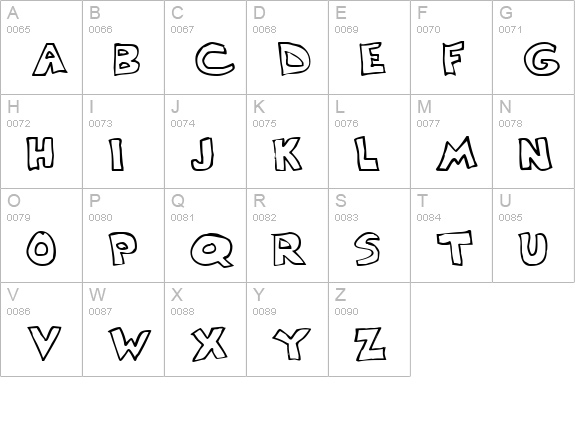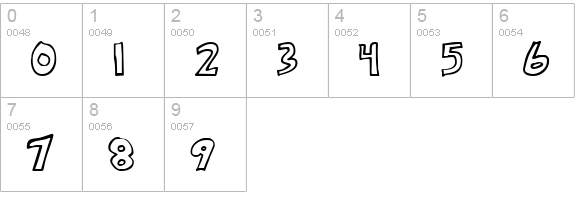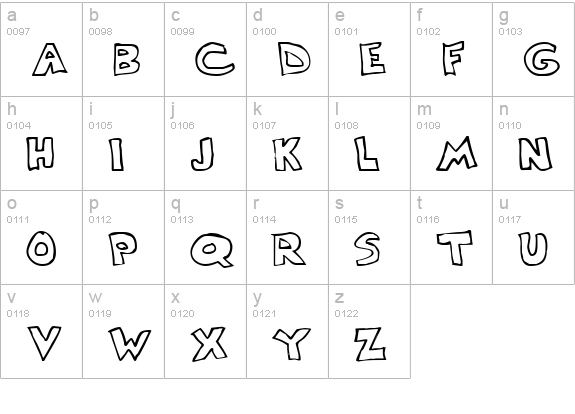
Scrawllege Font Details
Introducing Scrawllege, a uniquely captivating and versatile font that effortlessly combines elegance with a touch of playfulness. This extraordinary typeface is perfect for adding a dash of creativity to your projects, whether you're designing a logo, creating eye-catching headlines, or crafting stunning invitations. With its carefully crafted strokes and beautifully irregular letterforms, Scrawllege adds a distinct and charming character to any design it graces. What sets Scrawllege apart is not just its stunning aesthetics, but also its accessibility. We believe that great design should be freely available to all, which is why we are thrilled to announce that Scrawllege is completely free to download at FontsMarket.com. This means that you can instantly add this remarkable font to your collection without any cost, allowing you to unleash your creativity without limitations. Scrawllege is not just another font; it is a statement. Its bold yet graceful curves make a lasting impression, capturing the essence of individuality and imagination. Whether you're working on a personal project or a high-profile professional endeavor, Scrawllege will effortlessly elevate your design to new heights. With its extensive character set, Scrawllege provides endless possibilities for customization and experimentation. From ligatures and alternates to swashes and stylistic variants, this font grants you the freedom to tailor your designs to perfection. Whether you're aiming for a modern and edgy look or a whimsical and handwritten feel, Scrawllege has got you covered. Don't miss out on this exceptional font that is sure to become an essential addition to your design toolbox. Download Scrawllege for free today at FontsMarket.com and unlock a world of creativity at your fingertips. Let Scrawllege be your new go-to font for captivating and breathtaking designs that leave a lasting impression.